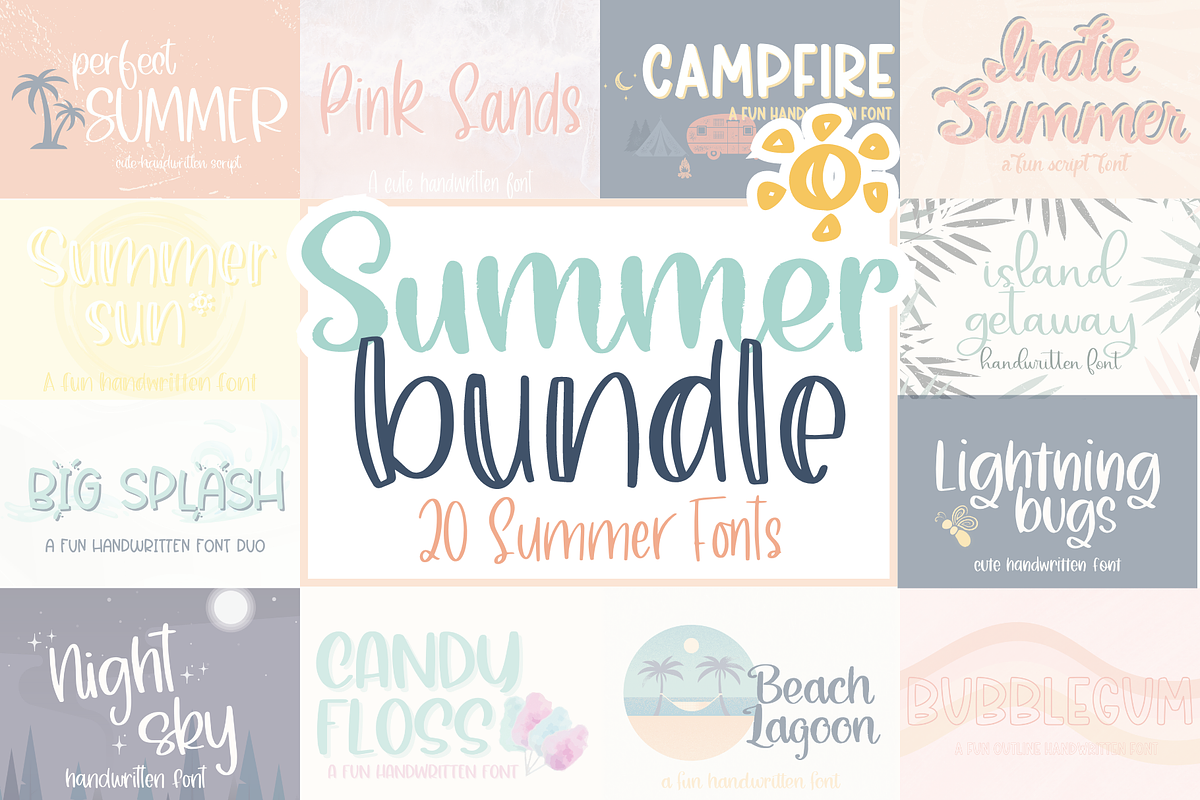
Summer Handwritten Font Bundle Free Download
Summer Handwritten Font Bundle Free Download is a vibrant and playful collection of handwritten typefaces designed to capture the carefree energy of summer. Featuring a variety of casual, breezy styles, the Summer Handwritten Font Bundle is perfect for beach party invites, travel blogs, summer product packaging, social media posts, and fun DIY projects.
Each font in the Summer Handwritten Font Bundle Free Download brings its own charm—ranging from bouncy scripts to bold marker-style handwriting—offering creative flexibility for any warm-weather design. Whether you're crafting sunny quotes, relaxed branding, or colorful seasonal promotions, this bundle gives you everything you need to radiate joyful vibes.